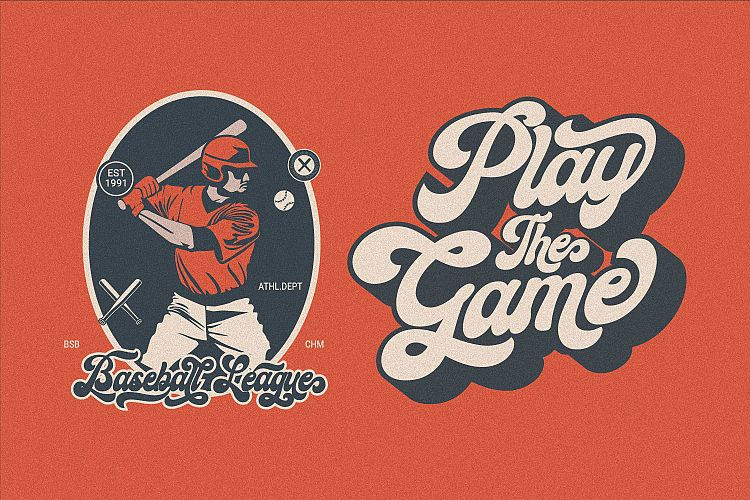
The Ginchiest Script Font
The Ginchiest Script Font is perfect for wedding invitations, greeting cards, branding projects, handwritten logos, vintage designs, calligraphy artwork, poster creation, social media graphics, packaging design, and decorative typography. This elegant typeface excels in both digital and print applications.
The Ginchiest Script Font is exciting because it captures the authentic charm of handwritten calligraphy with flowing strokes and natural variations that bring warmth and personality to any design. Its organic character and elegant flourishes create sophisticated visual appeal that connects emotionally with audiences while maintaining excellent readability.
The The Ginchiest Script Font family includes regular, bold, light, italic, ornamental, swash, and decorative variants, providing designers with comprehensive typographic options for various design scenarios and creative expressions.
The Ginchiest Script Font embodies the timeless elegance of traditional penmanship while offering modern convenience and digital precision for contemporary design projects. This sophisticated script typeface brings authentic handcrafted appeal to brands seeking to establish personal connections with their audiences through warm, approachable visual communication. The font's distinctive character makes it particularly valuable for luxury brands, boutique businesses, and artisanal products that emphasize craftsmanship and attention to detail.
The flowing letterforms of The Ginchiest Script Font demonstrate masterful calligraphic technique, with each character carefully balanced to create natural rhythm and visual harmony in extended text applications. This artistic refinement ensures beautiful results whether used for headlines, signatures, or decorative elements that require sophisticated typographic treatment. The font's organic qualities make it especially effective for brands in fashion, beauty, hospitality, and creative industries that value elegance and personal touch.
Creative professionals working with The Ginchiest Script Font Free Download will discover endless possibilities for expressive design solutions. Its versatile nature complements both vintage-inspired and contemporary aesthetics, making it suitable for diverse project requirements from wedding stationery to restaurant branding. The font's romantic character creates memorable visual experiences that resonate with audiences seeking authenticity and artisanal quality.
Whether designing luxury packaging, creating editorial headlines, or developing brand identities, The Ginchiest Script Font provides the calligraphic excellence needed for standout creative work that communicates sophistication, craftsmanship, and timeless appeal across all marketing channels.